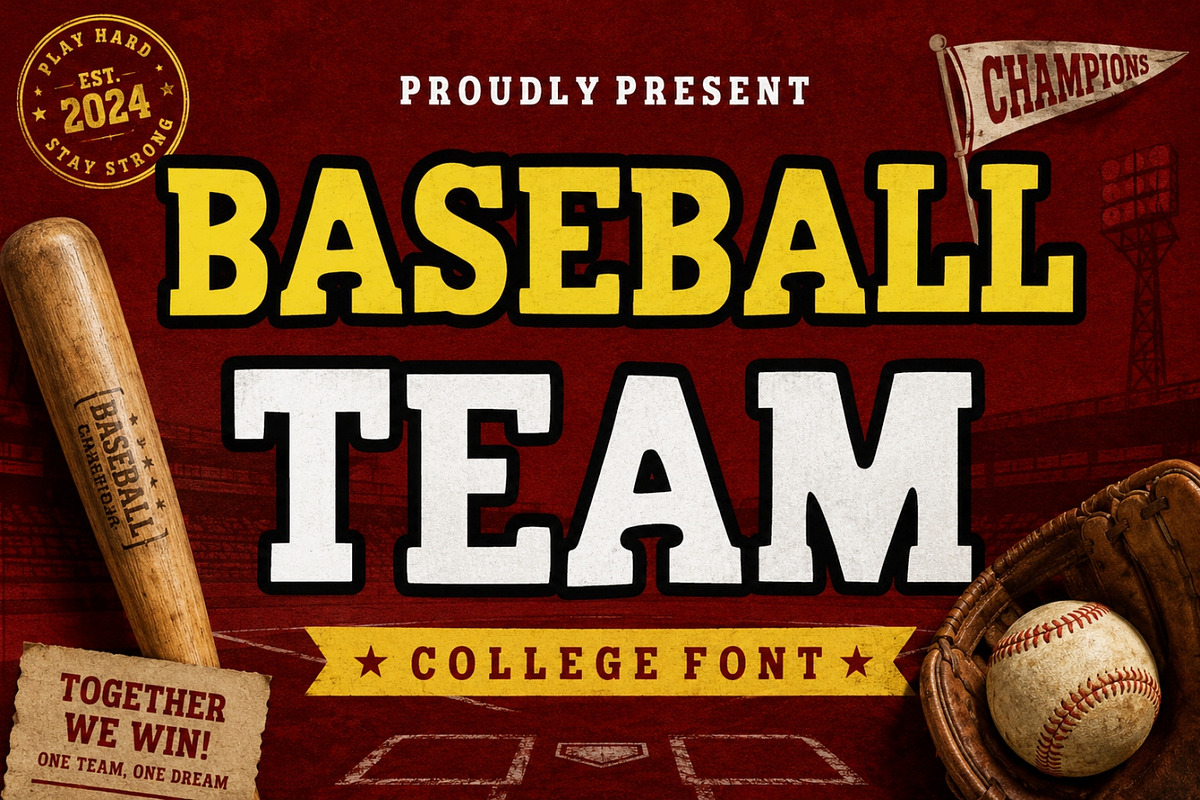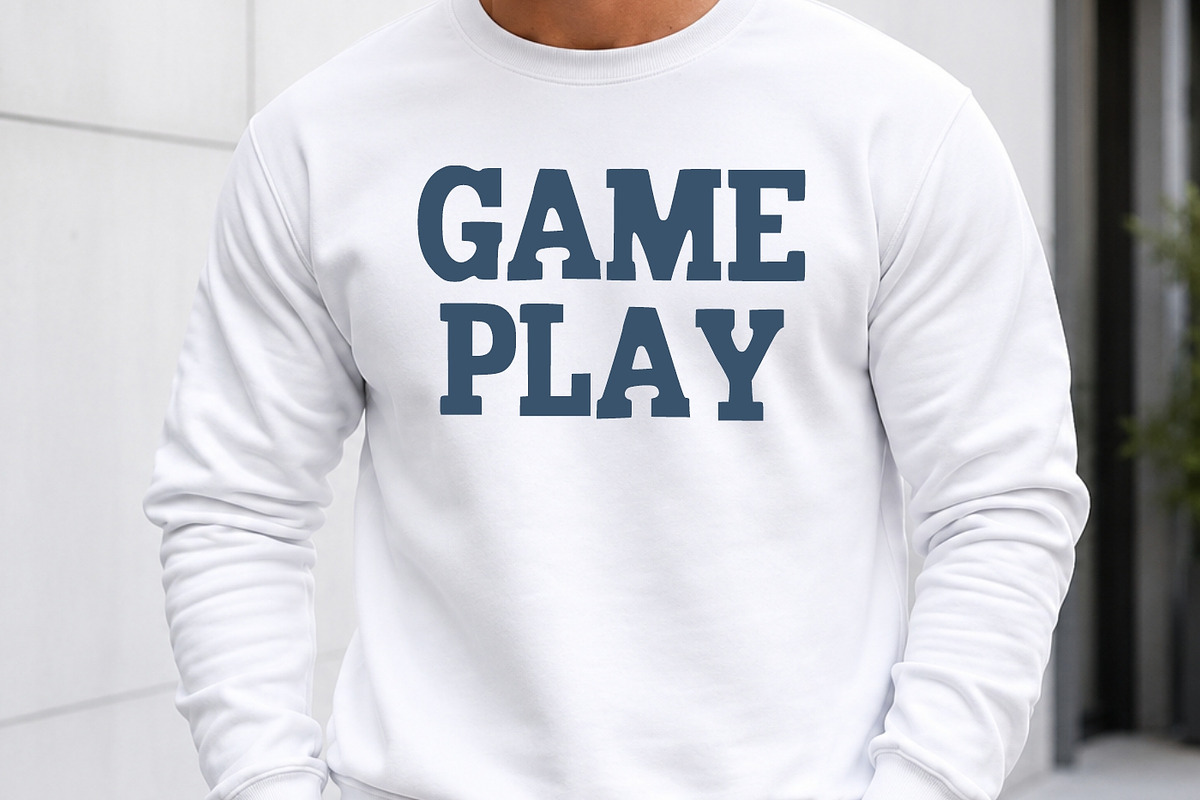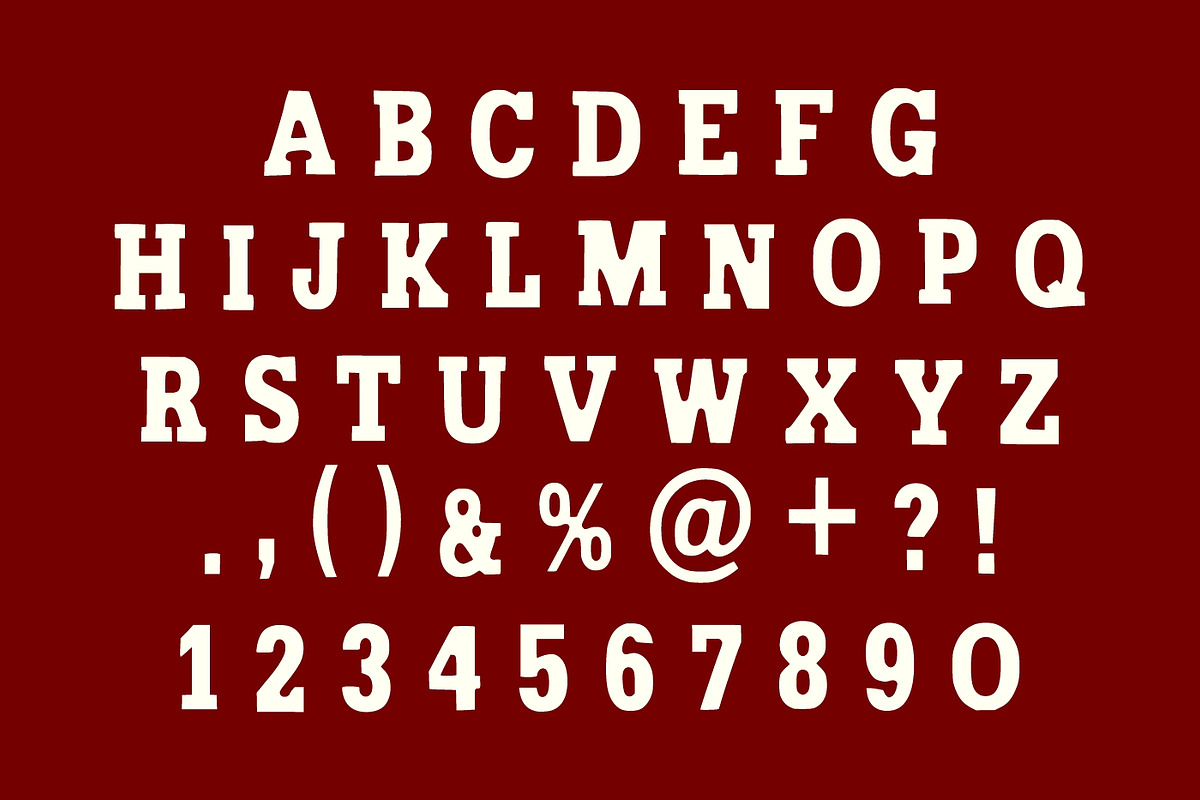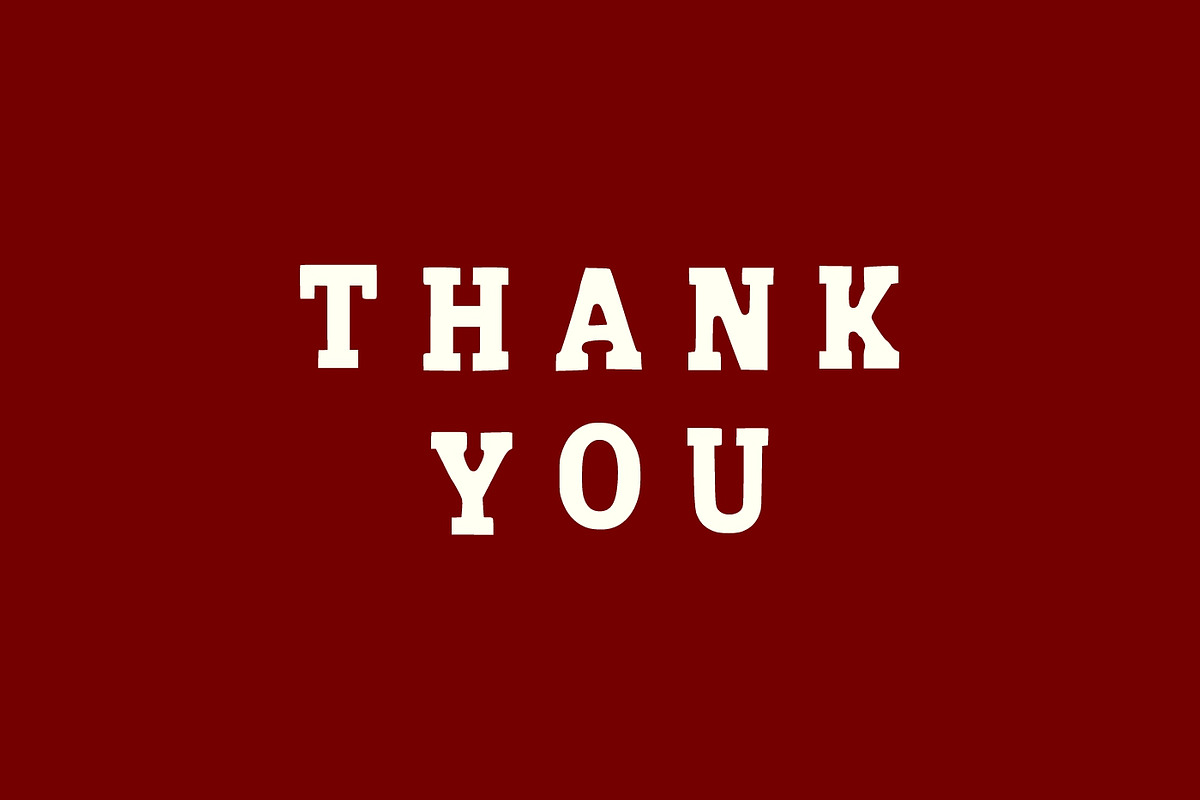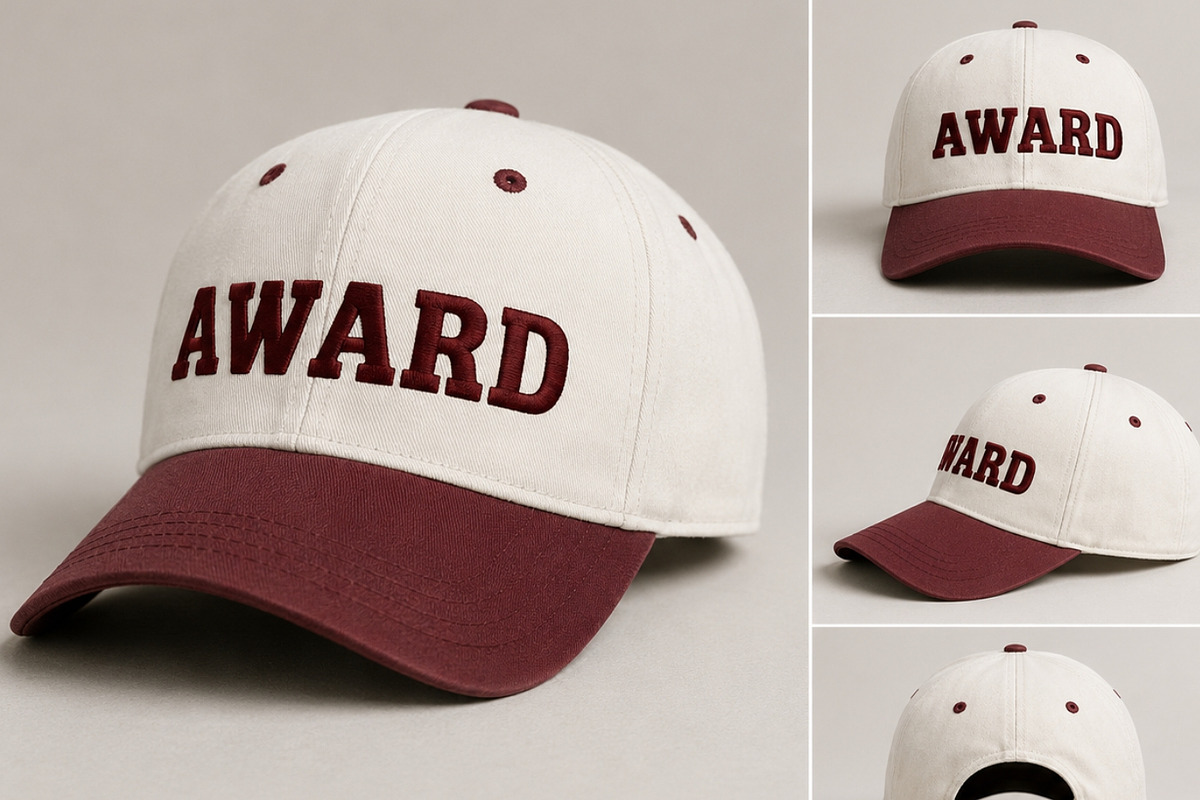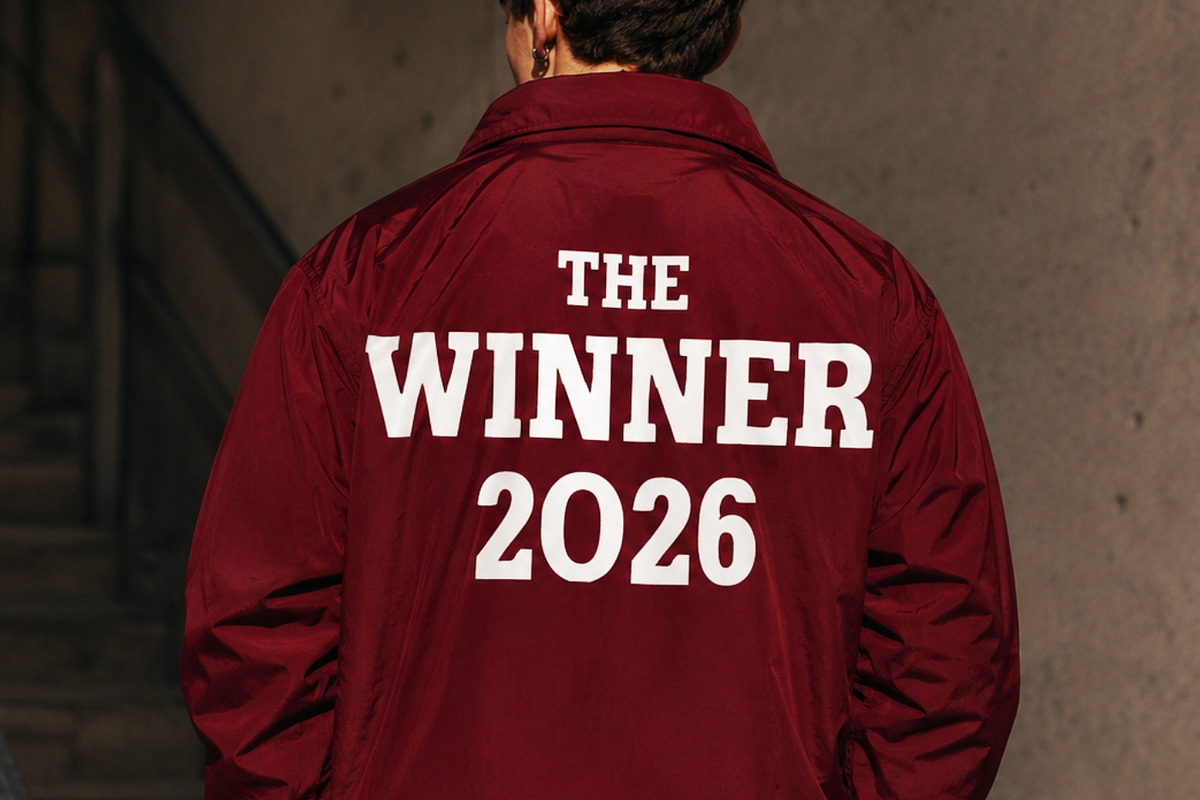
Baseball Team
Baseball Team is a bold and energetic varsity college font inspired by classic American baseball culture, championship teams, university athletics, and vintage sports branding. Featuring strong collegiate letterforms, athletic styling, and a powerful presence, this font is designed to capture the spirit of competition, teamwork, and victory.
Perfect for sports-related projects, Baseball Team delivers the authentic look of traditional college jerseys, baseball uniforms, stadium graphics, team logos, and championship merchandise. Its bold construction and clean readability make it ideal for creating impactful headlines, branding materials, apparel graphics, and promotional designs that demand attention.
Whether you’re designing for baseball teams, school sports programs, university branding, football clubs, basketball tournaments, esports organizations, or athletic events, Baseball Team provides the professional sports aesthetic needed to make your designs stand out. The classic varsity style brings a sense of tradition and prestige while remaining versatile enough for modern branding applications.
This font works beautifully across a wide variety of creative projects including jerseys, t-shirts, hoodies, sports posters, banners, team merchandise, logos, stickers, social media graphics, and print-on-demand products. Its bold collegiate appearance instantly communicates strength, determination, and team pride.
Bring the excitement of game day to your projects with Baseball Team, a varsity sports font built for champions, athletes, schools, and designers who want bold, memorable typography with a timeless athletic feel.